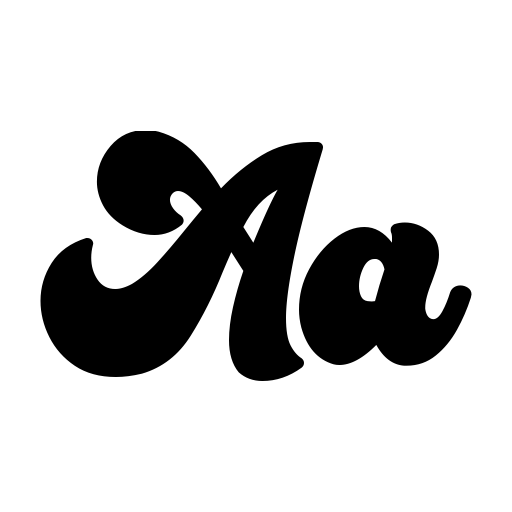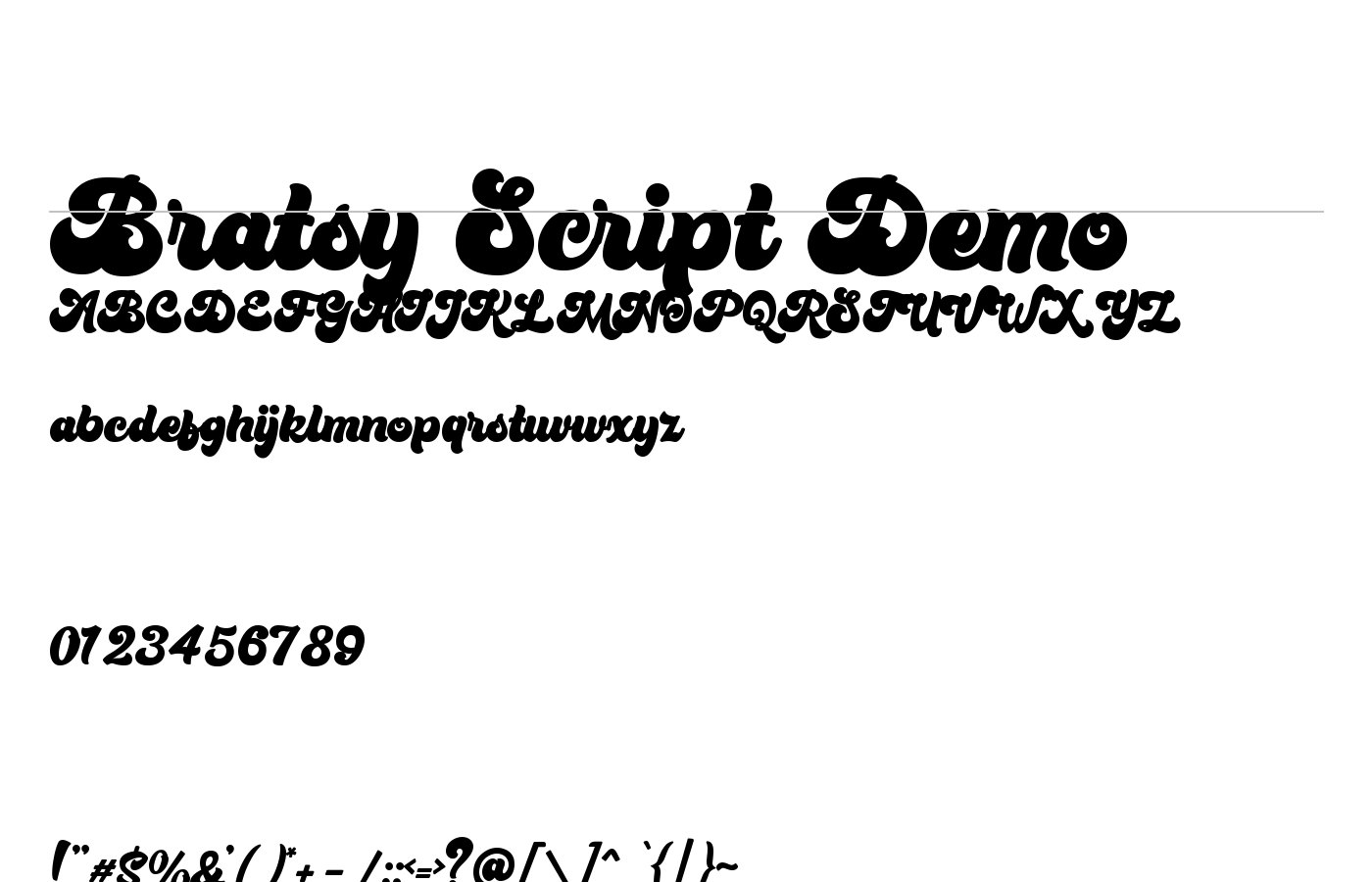
Bratsy Script Demo is a bold, playful script font characterized by its thick, rounded strokes and dense letterforms that evoke a vintage, retro vibe. Its strong weight and tightly knit curves give it a lively and energetic personality, making it ideal for eye-catching headlines, logos, and fun branding projects where a touch of charm and whimsy is desired. This font works best in display settings where its distinctive style can shine without sacrificing readability.
Bratsy Script Demo Font
About Bratsy Script Demo Font
| Font family | Bratsy Script Demo Font |
| Designer | Icep Anwar Fadhil |
| Trademark | Figuree Studio |